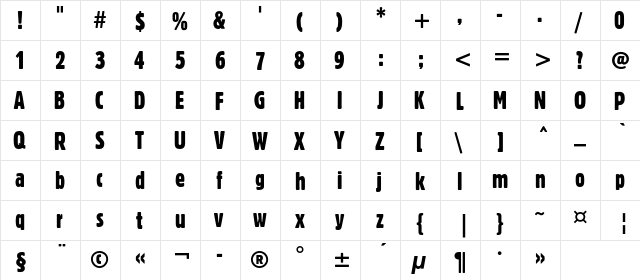
BlocExtCondC Regular
Design Context for BlocExtCondC Typeface
BlocExtCondC is a composed and adaptable typeface that performs quietly and consistently across a wide range of design contexts. The condensed width makes it efficient for tight spaces without sacrificing legibility.